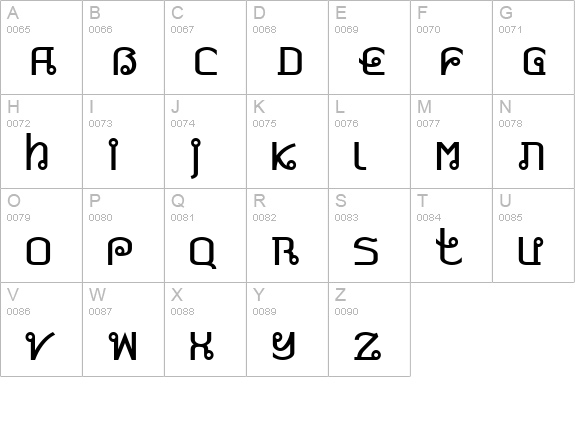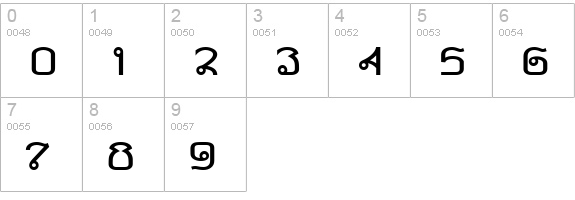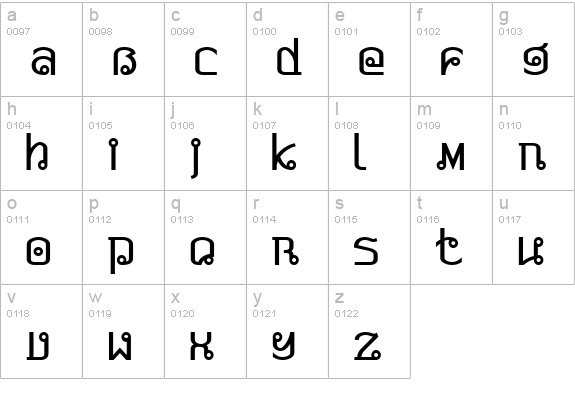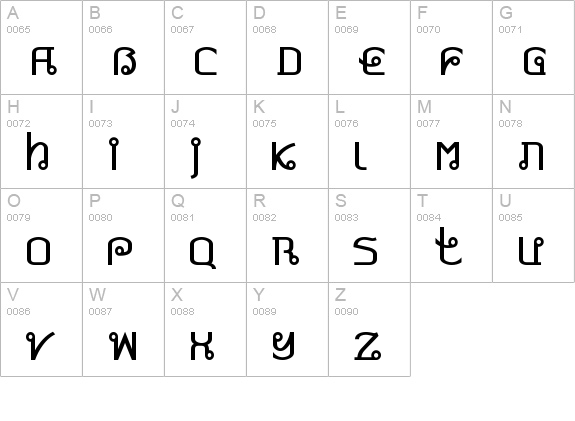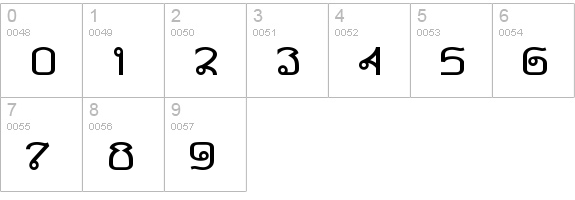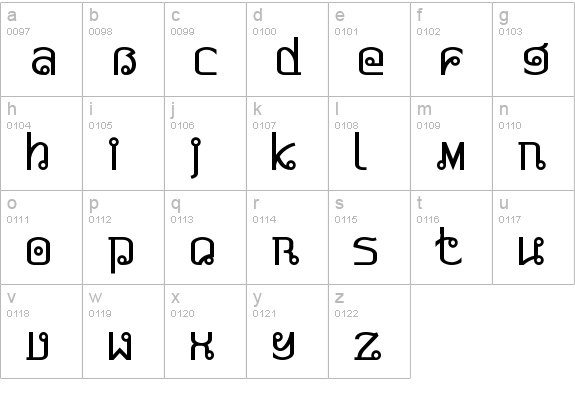
Pad Thai Font Details
Pad Thai font is a unique and stylish typeface that exudes a sense of modernity and elegance. With its clean lines and sleek design, this font is perfect for a wide range of design projects, from branding to advertising to web design. The bold yet sophisticated look of Pad Thai font makes it a versatile choice for both print and digital media. What makes Pad Thai font even more appealing is that it is available for free download at FontsMarket.com. This means that you can easily access this beautiful font and use it in your projects without any cost. Whether you're a professional designer or just someone looking to add a touch of creativity to your work, Pad Thai font is a fantastic choice that won't break the bank. So why wait? Download Pad Thai font today and elevate your designs with its sleek and modern aesthetic.